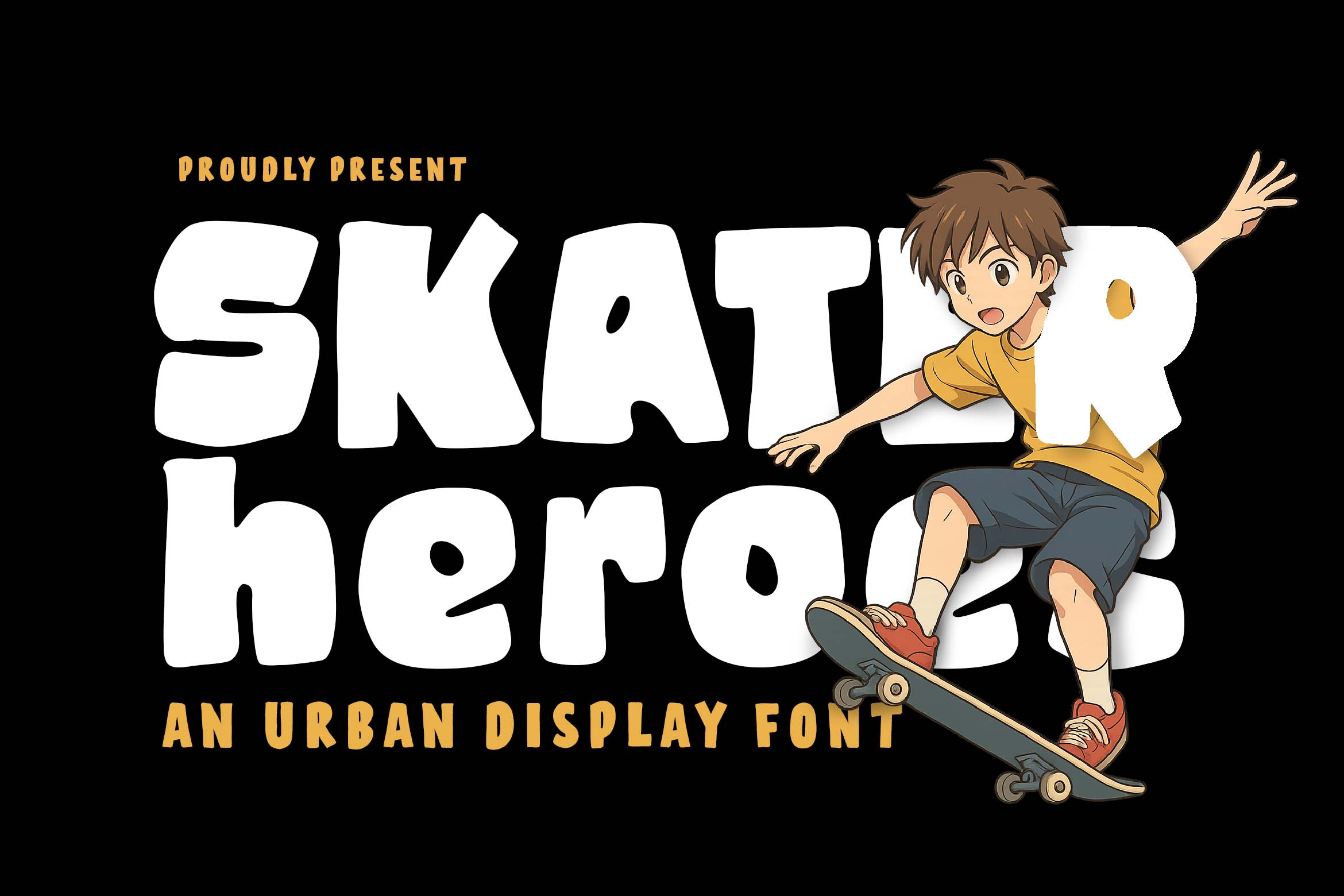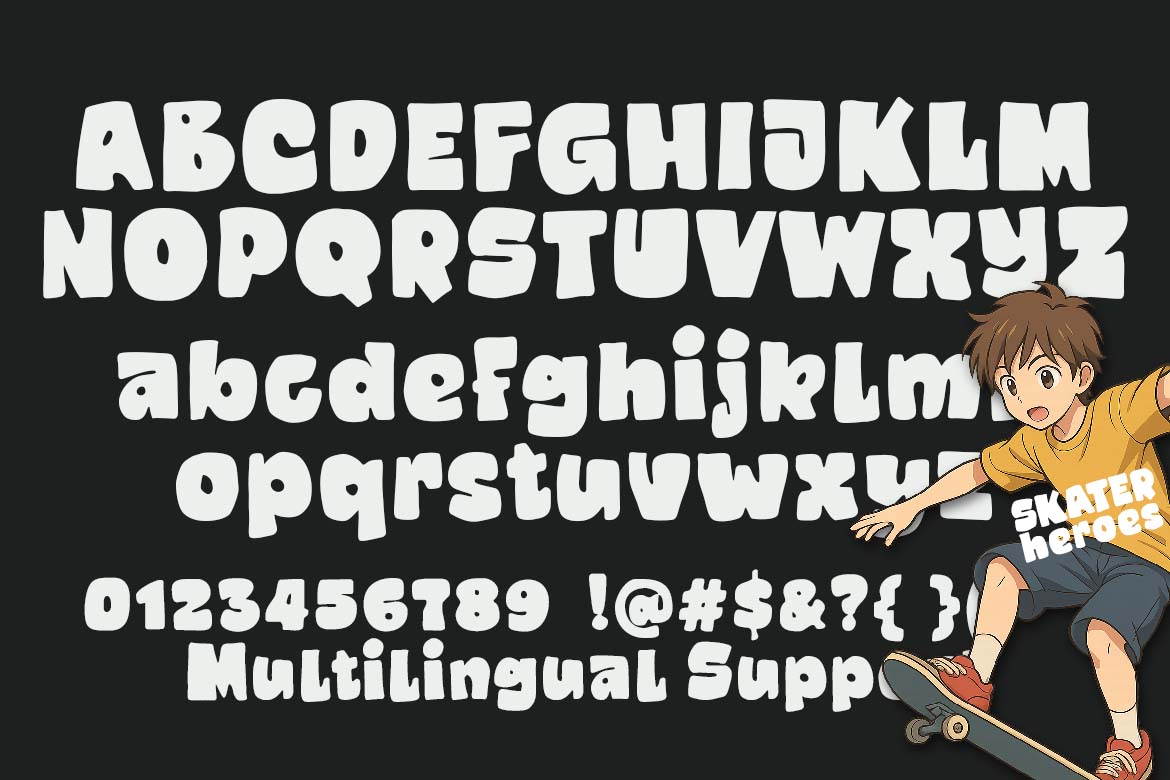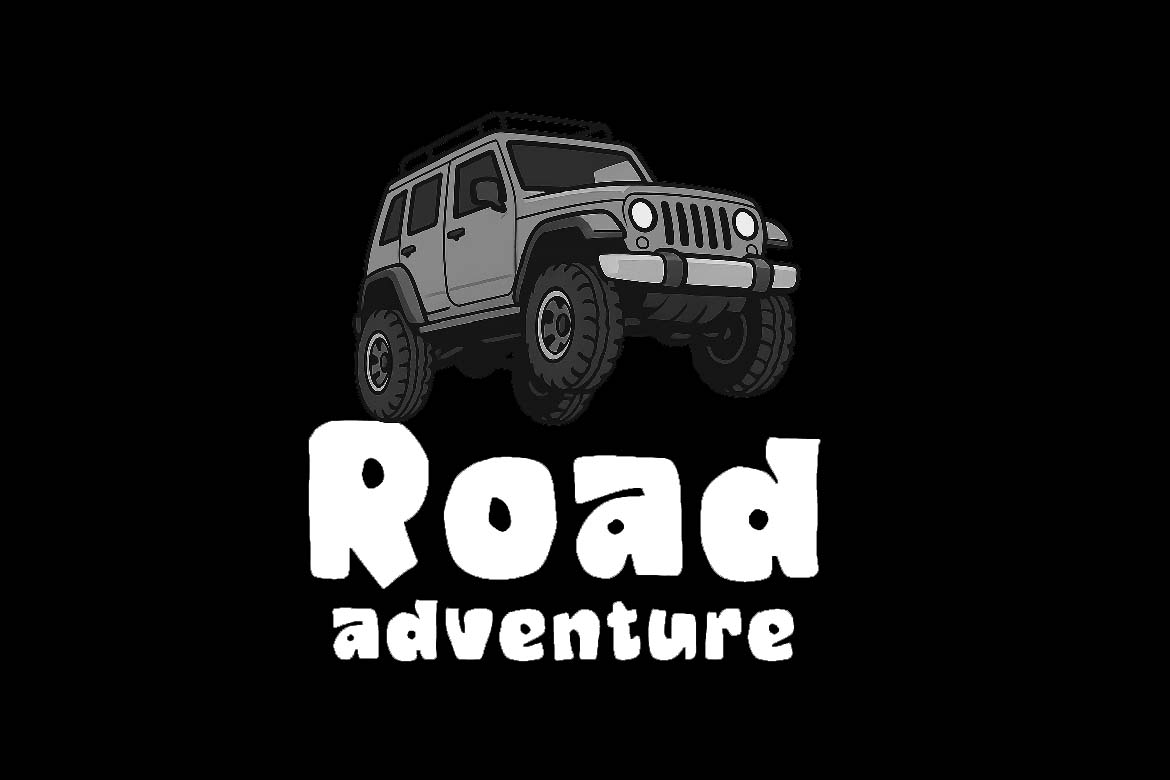
Skater Heroes – A Bold Urban Font
Skater Heroes – A Bold Urban Font for Youthful Branding
Let your creativity roll with Skater Heroes, a bold and unique urban display font inspired by street style and skate culture. With thick, organic letterforms and a playful attitude, this font brings energy and movement to every design it touches.
Exclusively available at Primefont.com, Skater Heroes is perfect for standout logos, youth-focused product packaging, and fresh branding that speaks to a modern, energetic audience. Its natural flow and hand-crafted feel make it ideal for designs that want to look bold, fun, and authentic.
Perfect for:
• Urban-style logo designs
• Skateboard and streetwear product branding
• Cool food and snack packaging
• Bold posters and youth campaigns
• Corporate projects targeting Gen Z or creative industries
Whether you're building a personal street brand or working on a commercial enterprise campaign that needs extra attitude, Skater Heroes delivers personality and punch.